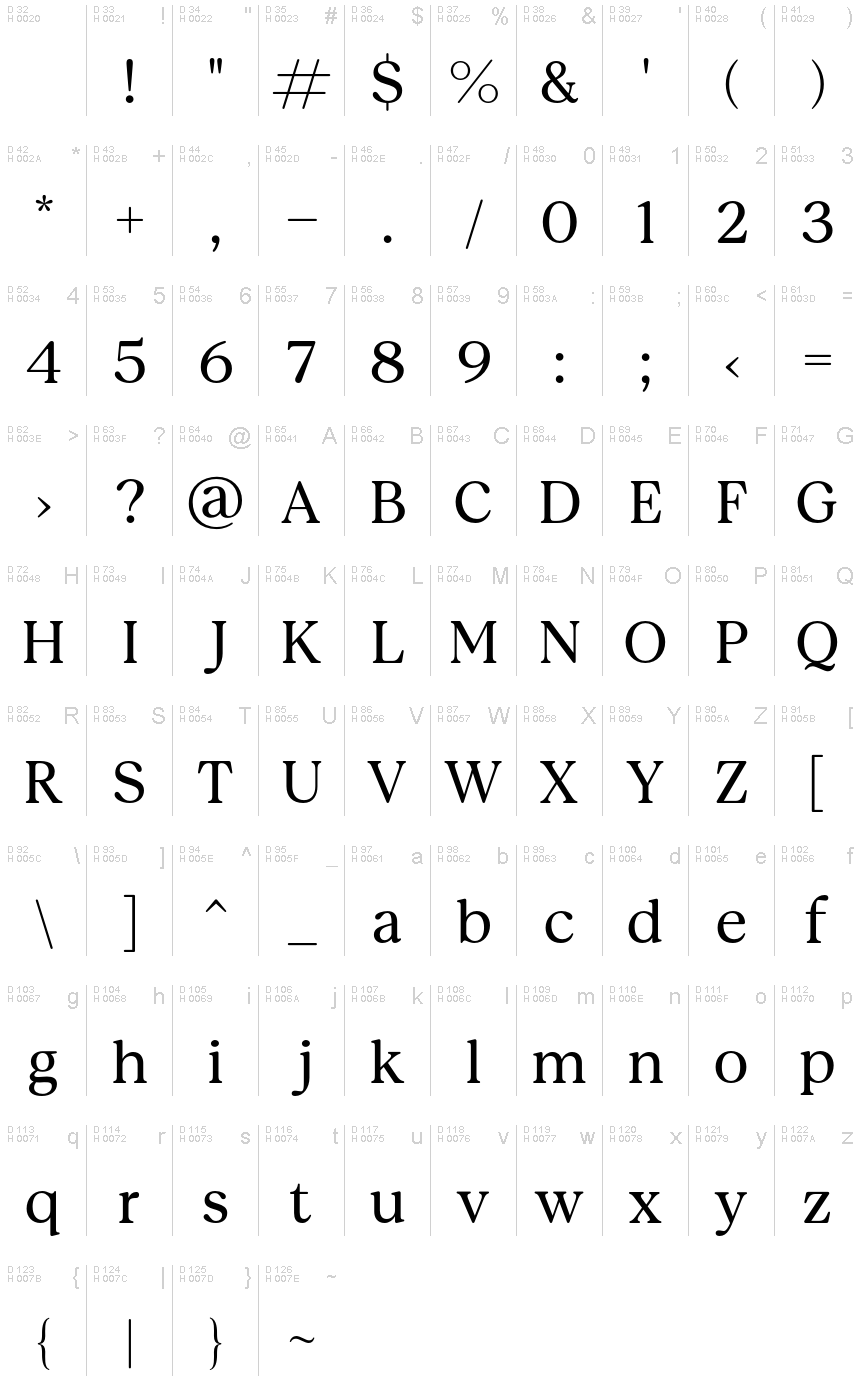
MADE Awelier PERSONAL USE Regular
Introducing MADE Awelier, a captivating serif font designed by MadeType. This typeface exudes a timeless elegance, with its refined strokes and subtle curves creating a harmonious and visually appealing aesthetic. The MADE Awelier font's distinctive character emanates a sense of sophistication, making it a compelling choice for a wide range of design applications.
The MADE Awelier font's versatility shines through its ability to seamlessly adapt to diverse design contexts. Its versatile nature lends itself well to editorial projects, such as book covers, magazine layouts, and scholarly publications, where its refined characteristics can elevate the overall visual presentation. Additionally, the MADE Awelier font's timeless appeal makes it an excellent selection for branding and identity design, allowing for the creation of elegant and memorable visual identities.
MADE Awelier is a soft serif typefamily.